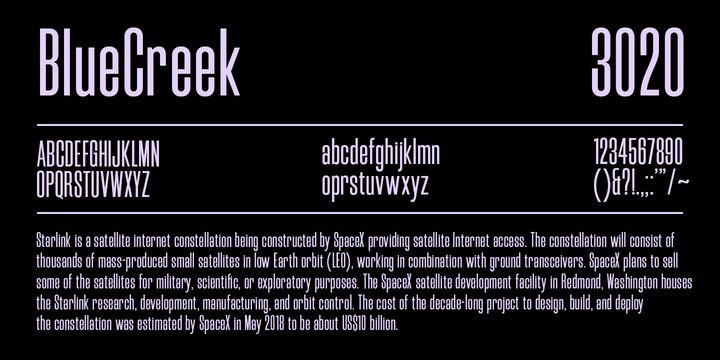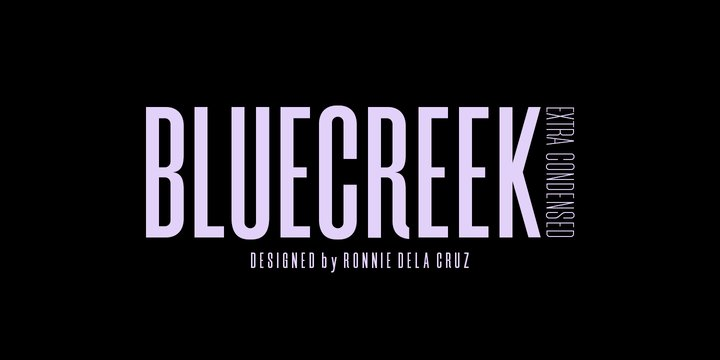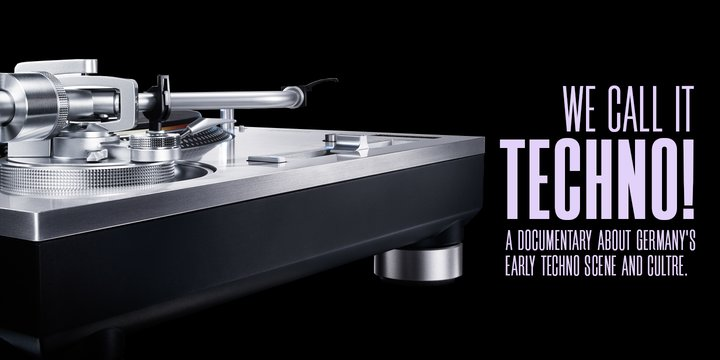
Blue Creek Font
Blue Creek FontBlueCreek is a extra condensed geometric typeface, and works best in text and display applications, such as headline, posters, signage, magazine, print, product branding, corporate branding, logos and titles. Several alternate characters are included in this typeface.